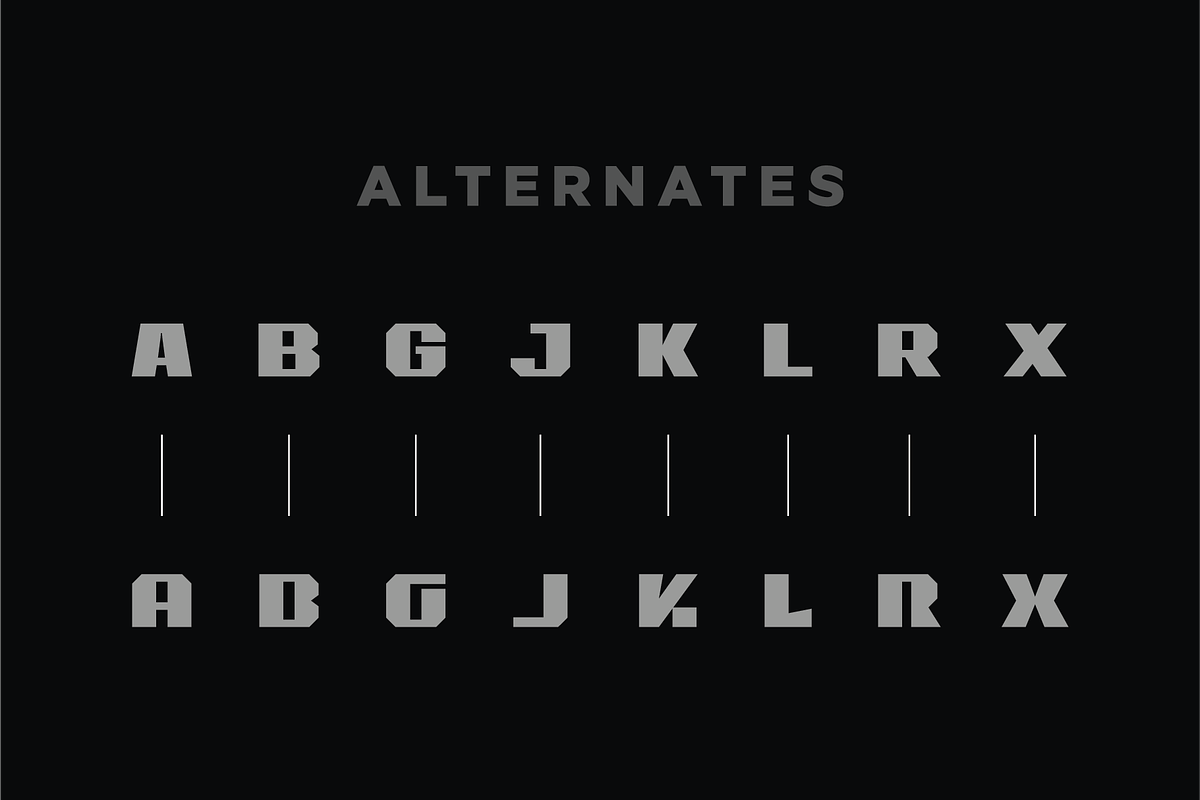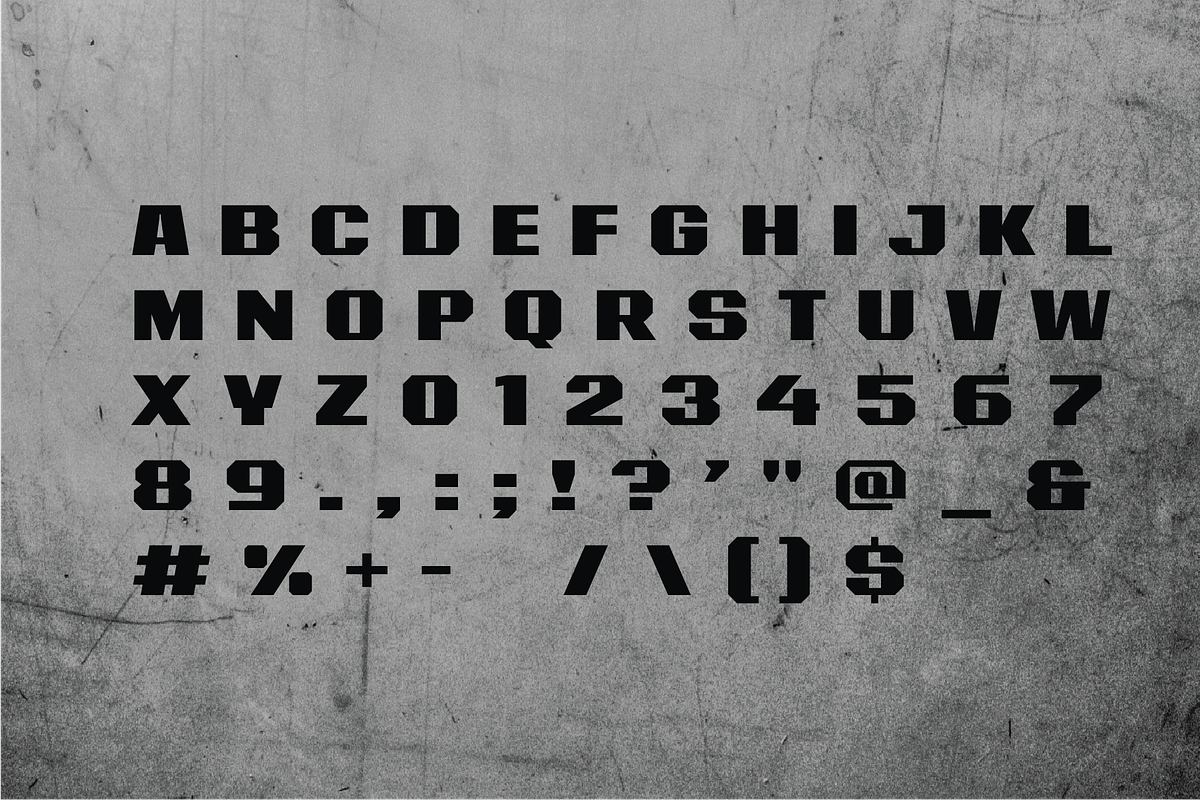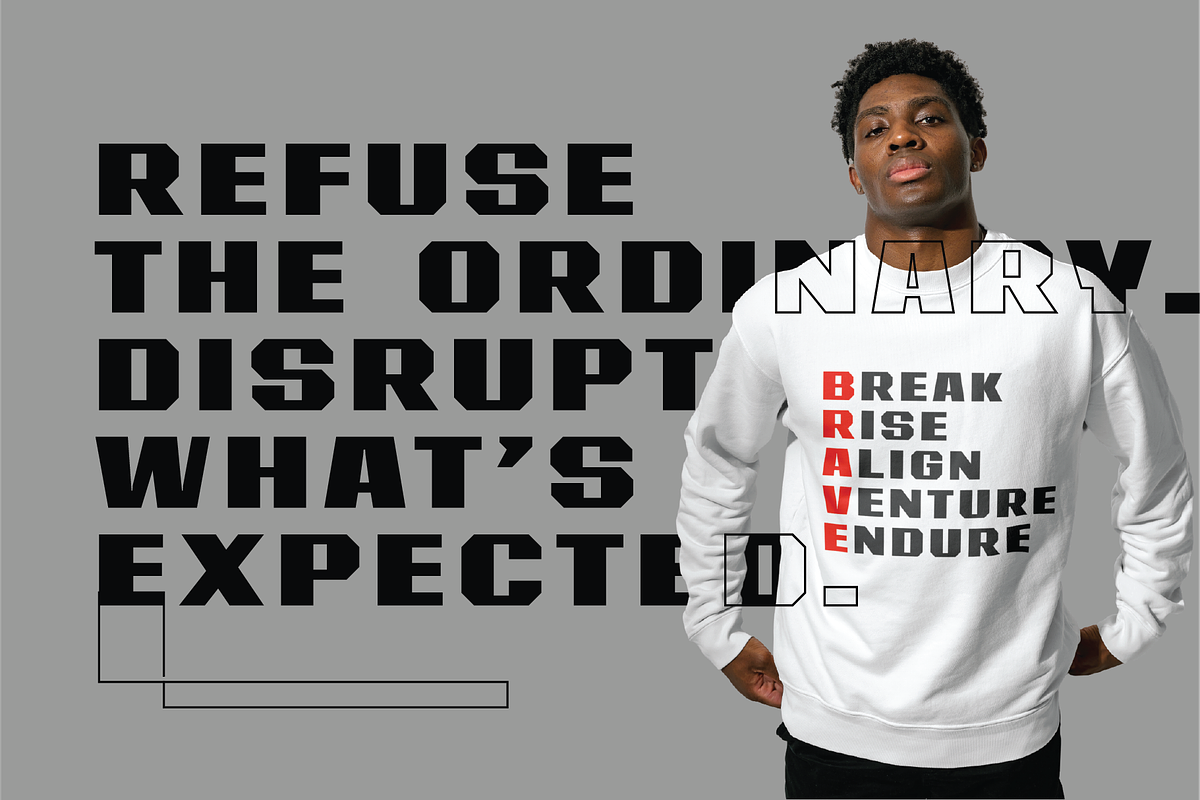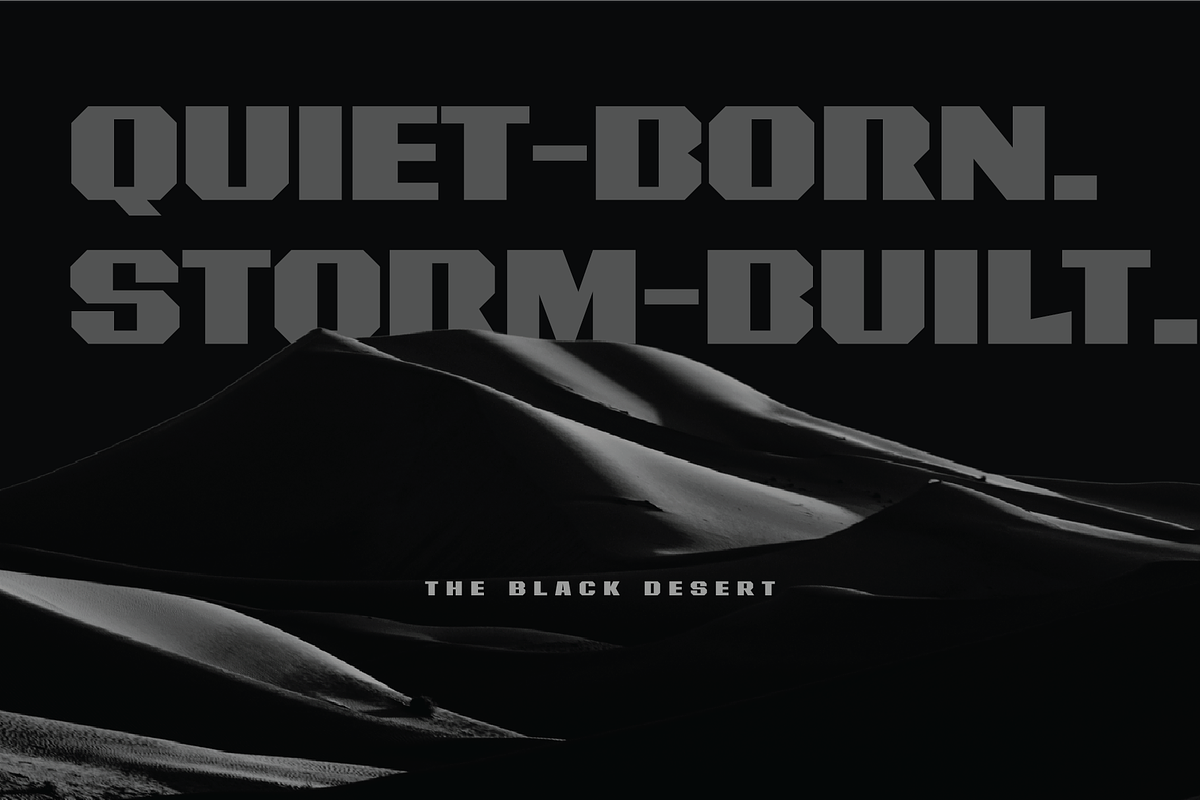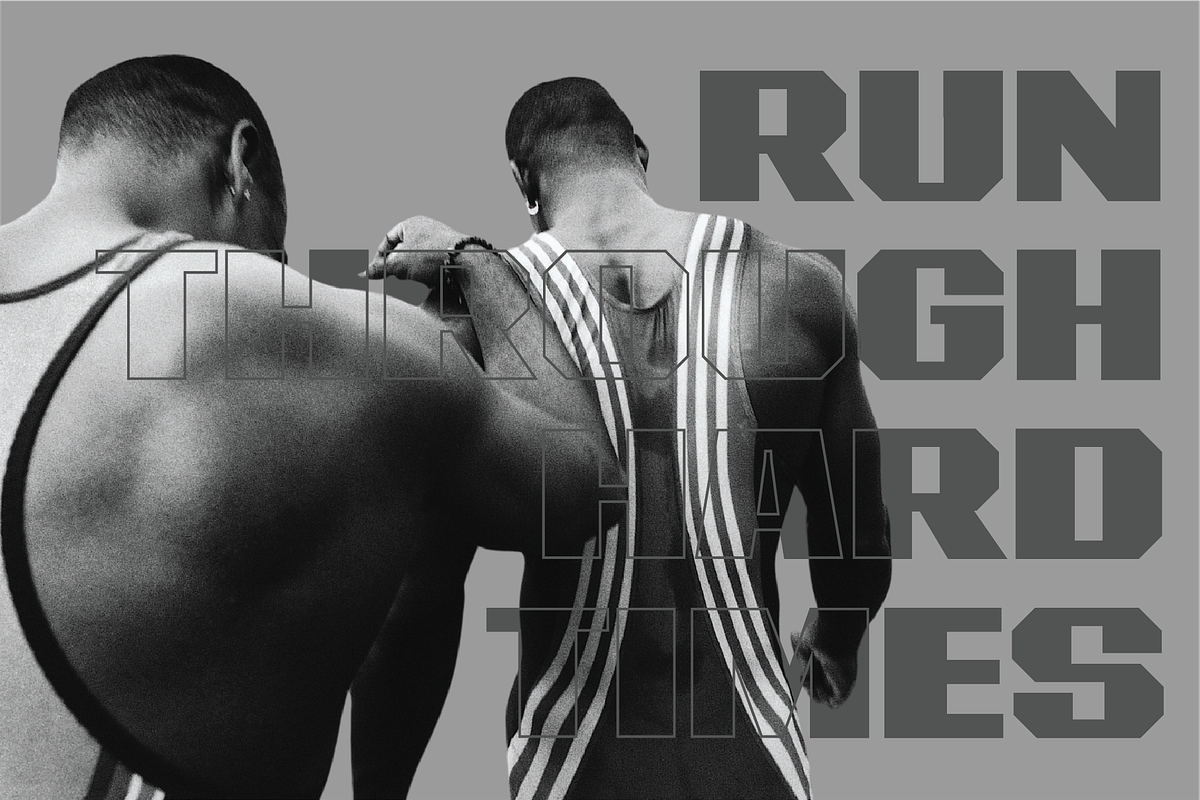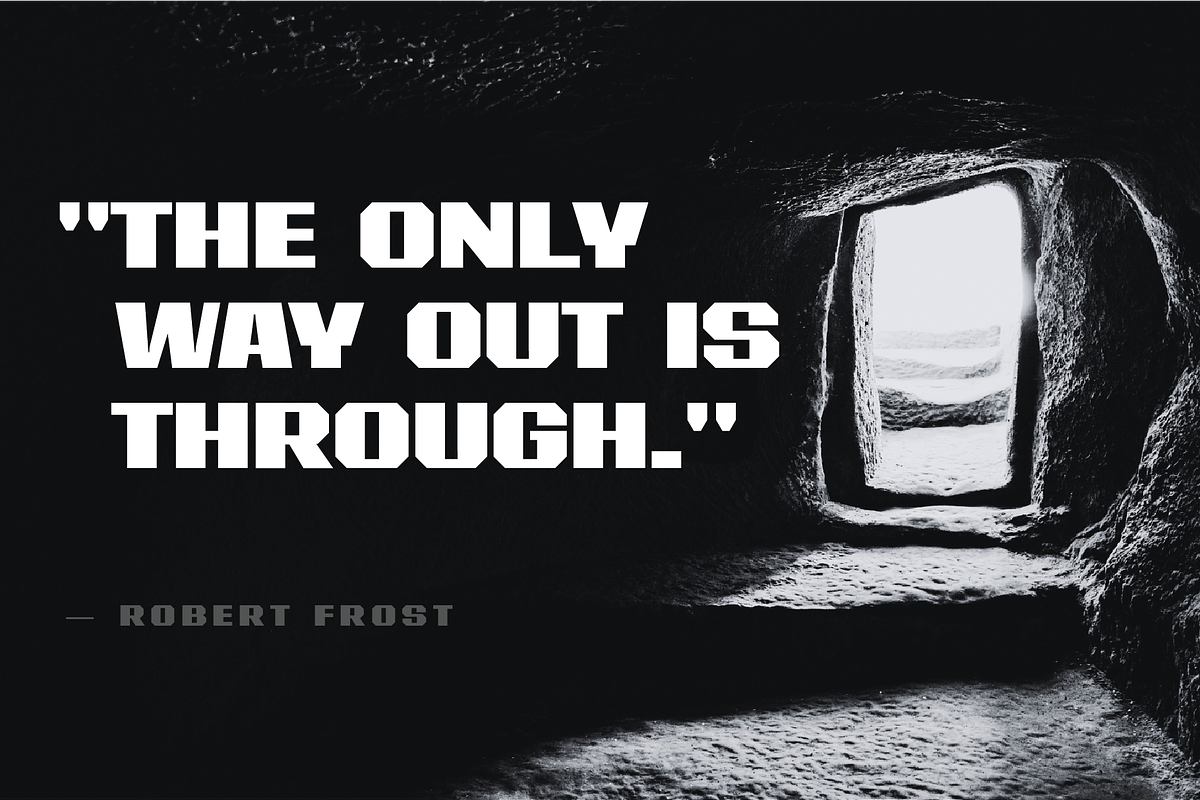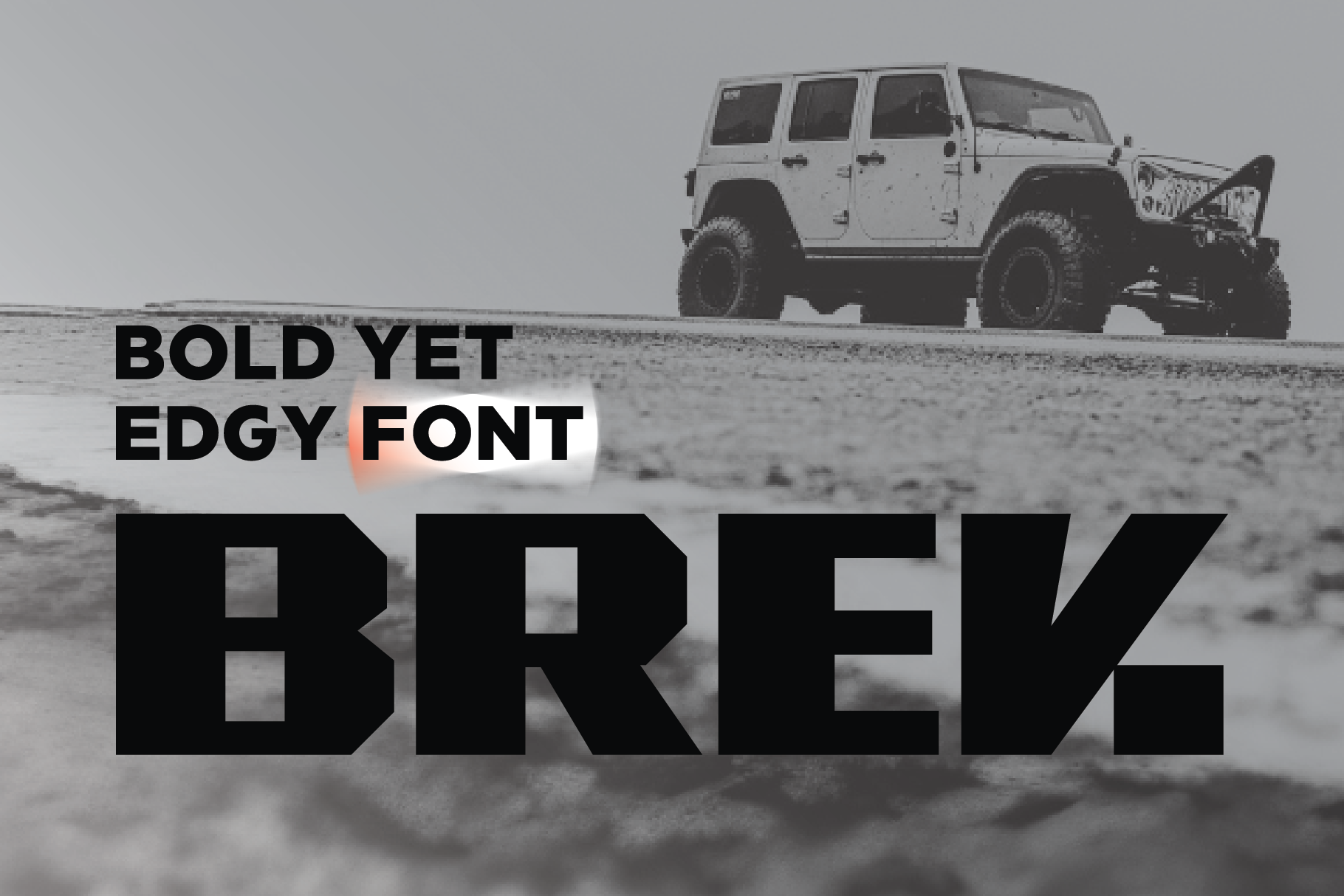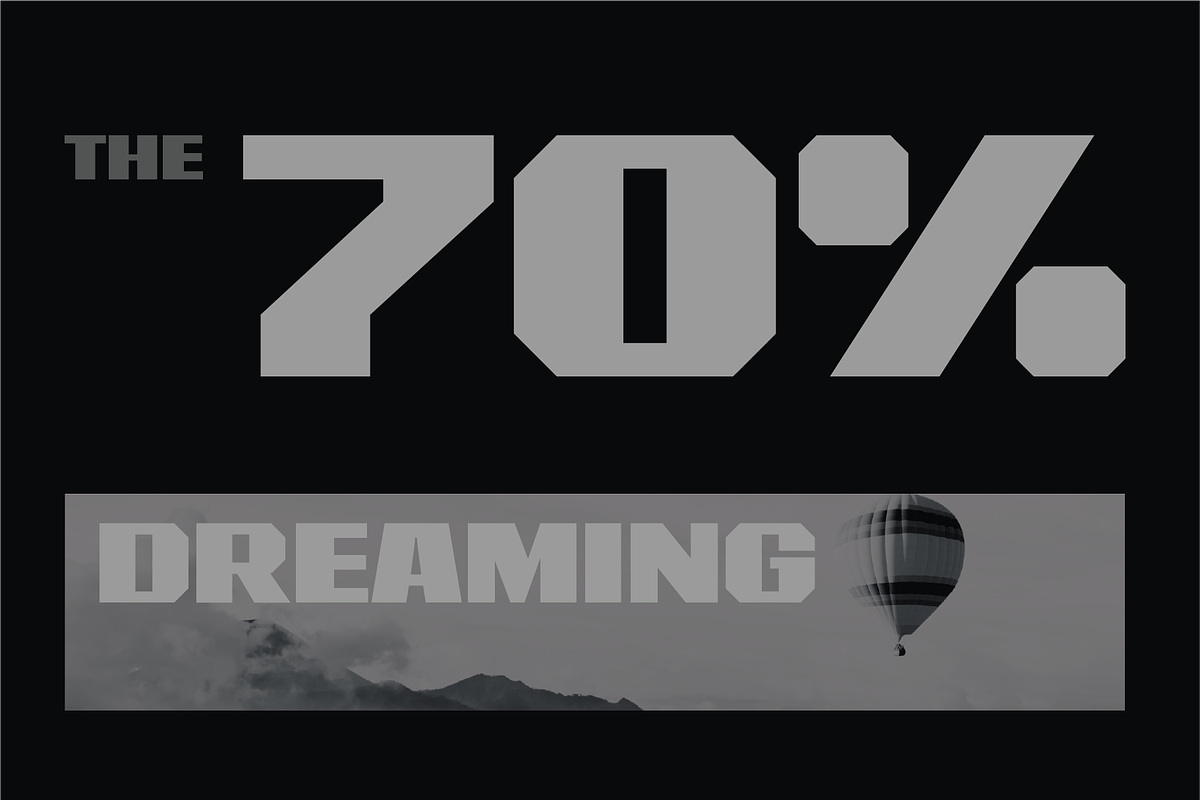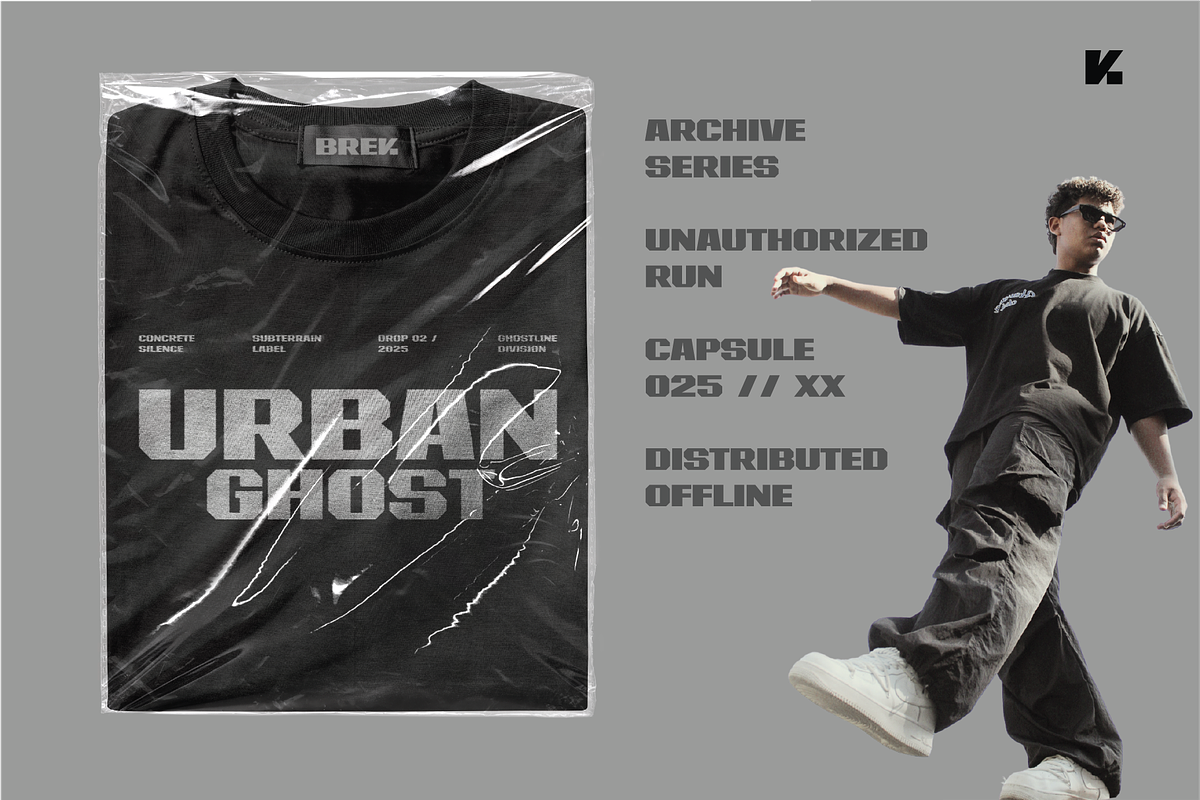
Brek-Bold Blocky Sans Serif Font
Brek is a powerful blocky sans serif font designed for maximum impact. Its bold weight, strong geometric structure, and modern edge make this blocky font a perfect choice for headlines, logos, posters, and branding that demand attention. Its sharp, square letterforms and clean lines deliver a confident, industrial feel—ideal for tech, esports, streetwear, and futuristic design projects.